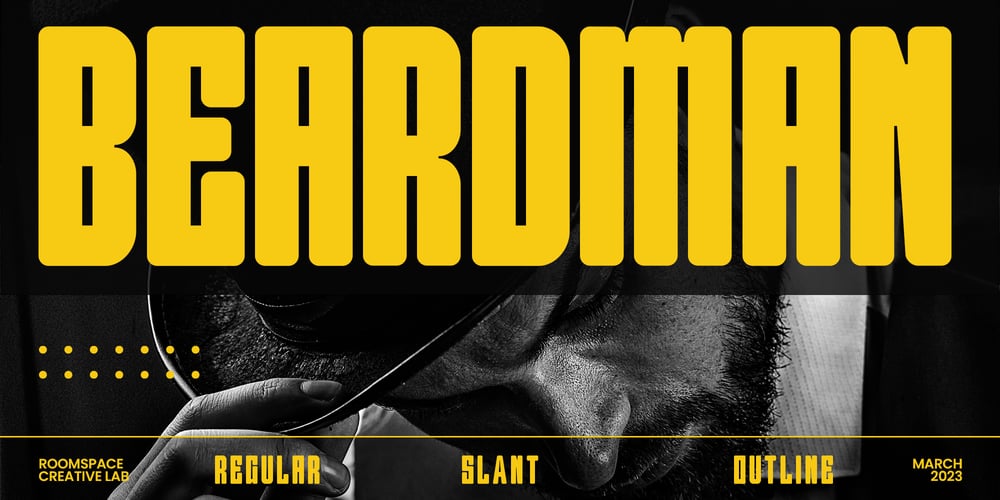
Beardman Outline
Beardman Outline font
Beardman Outline Font Family was designed by Bakhrudin Ja’far and published by Jafar07. Beardman Outline contains 4 styles and family package options. Beardman is a condensed sans-serif font designed specifically for bold and powerful headlines and titles. With four variants available: regular, italic, regular outline, and italic outline, this font allows you to express yourself with a style that suits your design project.The name “Beardman” is inspired by the meaning of a man who is masculine but has a soft heart, and it is reflected in the font’s design. With strong and sturdy letterforms, the font also has a gentle and smooth touch that gives an elegant and modern impression.With its strong and expressive appearance, “Beardman” is suitable for use in graphic design projects such as posters, brochures, magazines, websites, and much more. Add a touch of masculine yet gentle to your design with the “Beardman” font.What did you get? Regular, Italic, Regular Outline & Italic Outline Alternates & Ligatures Numbers & Punctuation Multilingual Support Works on PC & Mac Simple Installations